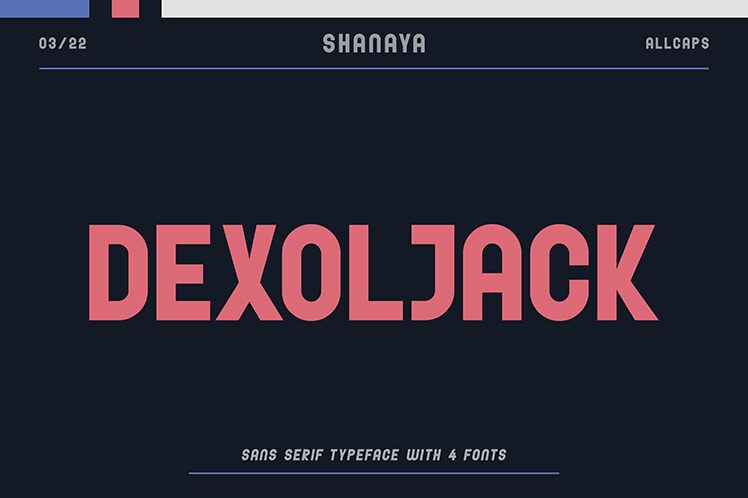
Dexoljack
Dexoljack font by Shanaya Studio presents a modern, minimalistic design marked by clean lines and a geometric structure. This sans serif, condensed font brings a futuristic feel that’s both sleek and professional. It’s an elegant yet bold typeface with style and versatility capable of elevating all design forms.
Enjoy it at no cost for designing website headers, technology magazines or posters, mobile app interfaces, electronic gadgets branding projects, or anything that relates to robots and AI. The free fonts also work on circumstances such as editorial layouts or digital advertisements where concise information is needed in small spaces.